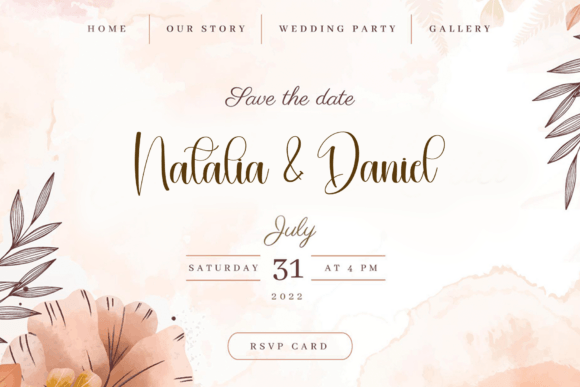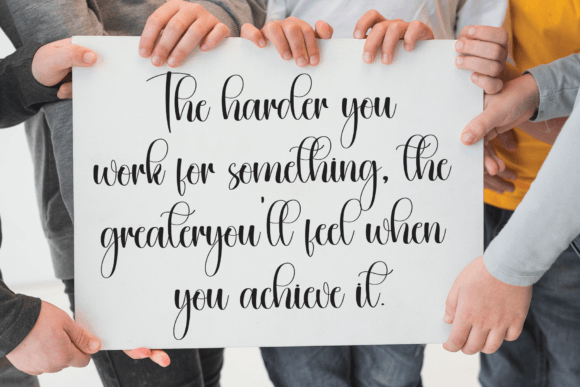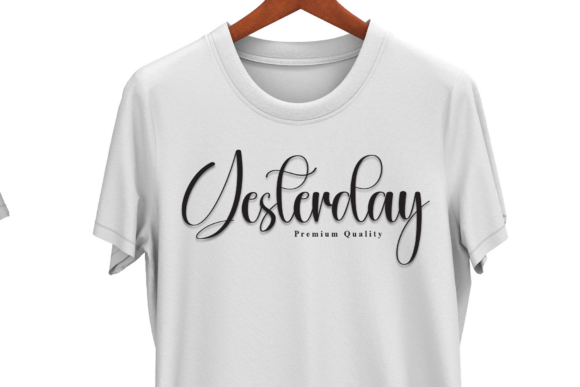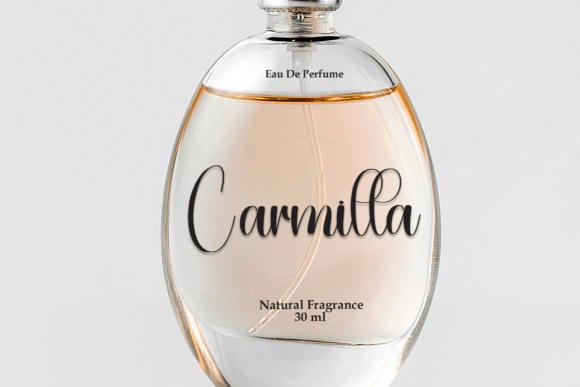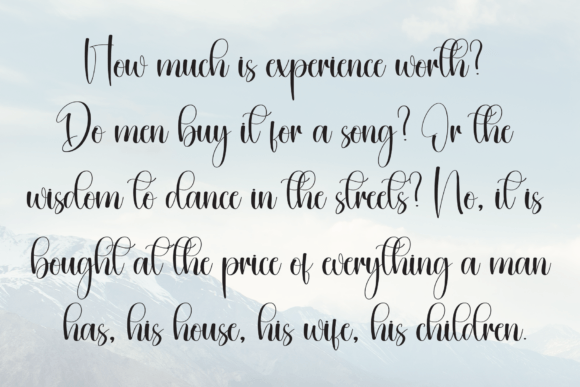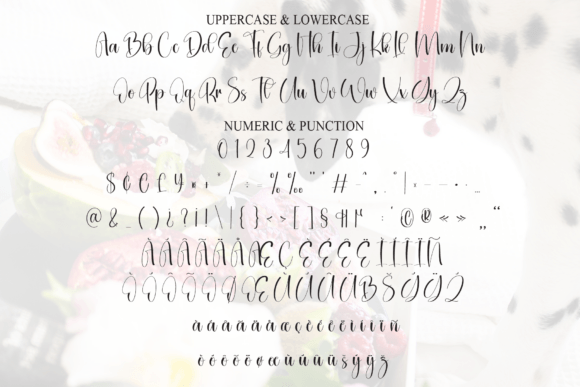
Introducing Dalmatian Font: Elevate Your Designs with Elegance and Sophistication
In the world of typography, fonts play a crucial role in conveying the message and aesthetic of a design. For designers and crafters looking to add a touch of modern elegance to their projects, the Dalmatian Font is an excellent choice. This stylish script font boasts smooth, flowing letters that exude a sense of sophistication and creativity.
What Makes Dalmatian Font Stand Out?
Dalmatian Font is characterized by its smooth curves and sharp lines, making it perfect for designs that require a sleek, digital vibe. Its modern and elegant look sets it apart from other fonts, making it an ideal choice for winter-themed projects, luxury brands, and high-end designs. Whether you’re working on a logo, brochure, or website, Dalmatian Font is sure to make a lasting impression.
Key Features of Dalmatian Font
- Smooth and Flowing Letters: Dalmatian Font features smooth, flowing letters that are perfect for creating elegant and sophisticated designs.
- Modern and Elegant Look: The font’s modern and elegant look makes it perfect for designs that require a touch of luxury and sophistication.
- Sleek and Digital Vibe: The font’s smooth curves and sharp lines give it a sleek, digital vibe that’s perfect for modern designs.
- Winter-Themed Projects: Dalmatian Font is ideal for winter-themed projects, such as Christmas cards, winter fashion designs, and snow-themed graphics.
Uses of Dalmatian Font
Dalmatian Font is a versatile font that can be used in a variety of design projects, including:
- Logo Design: Use Dalmatian Font to create a sophisticated and elegant logo for your brand.
- Brochures and Flyers: Add a touch of luxury to your brochures and flyers with Dalmatian Font.
- Web Design: Use Dalmatian Font to create a modern and elegant website that showcases your brand’s personality.
- Social Media Graphics: Create stunning social media graphics with Dalmatian Font, perfect for Instagram, Facebook, and Twitter.
- Crafting and DIY Projects: Use Dalmatian Font to add a personal touch to your crafting and DIY projects, such as handmade cards, gift tags, and scrapbooking.
In conclusion, Dalmatian Font is a stylish script font that offers a modern and elegant look, perfect for designers and crafters looking to add a touch of sophistication to their designs. Its smooth curves and sharp lines make it ideal for winter-themed projects, luxury brands, and high-end designs. With its versatility and range of uses, Dalmatian Font is sure to become a staple in your design toolkit.